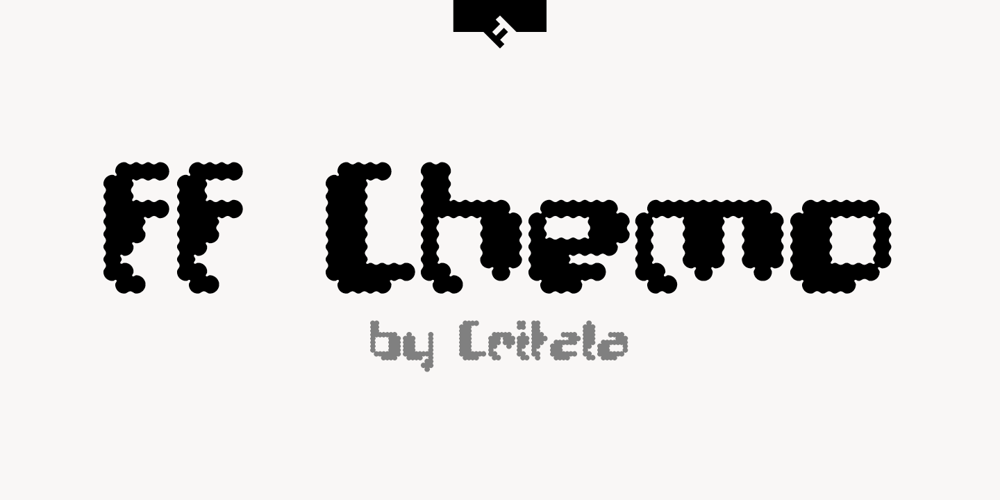
FF Chemo Font Family was designed by Critzla and published by FontFont. FF Chemo contains 11 styles and family package options. German type designer Critzla created this display FontFont in 1997. The family has 11 weights, and is ideally suited for music and nightlife. FF Chemo provides advanced typographical support with features such as ligatures and case-sensitive forms. It comes with proportional oldstyle figures.